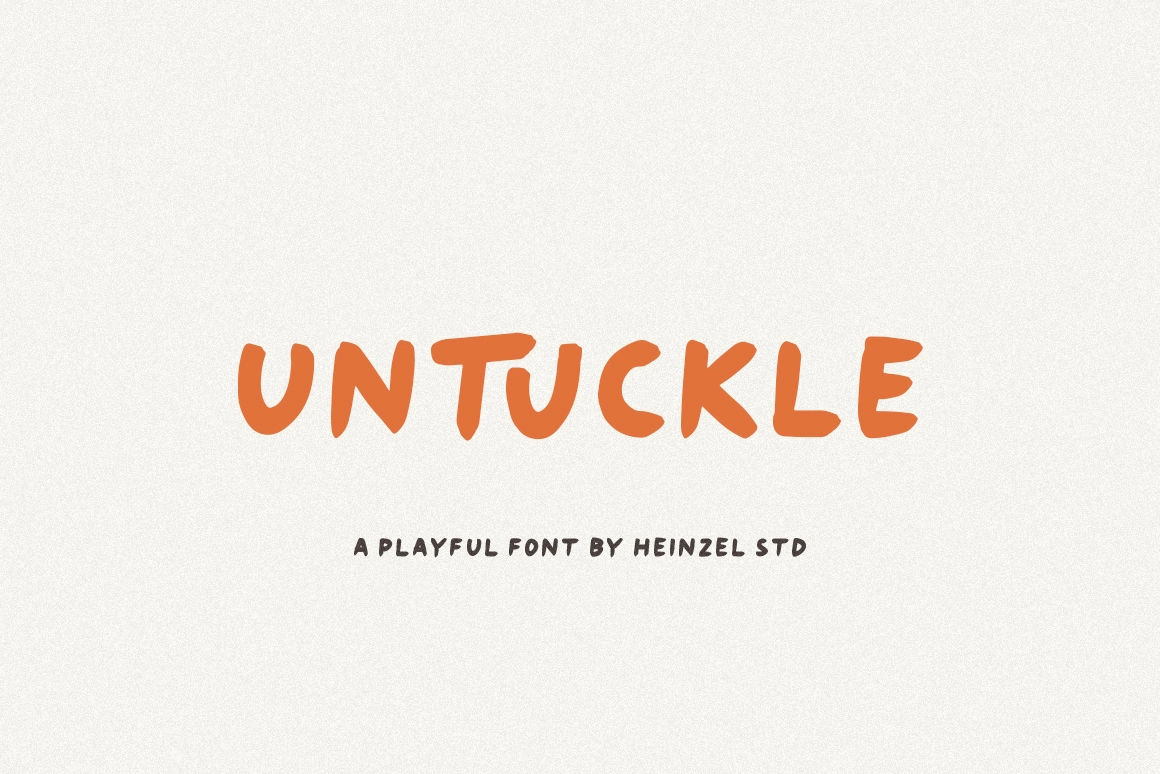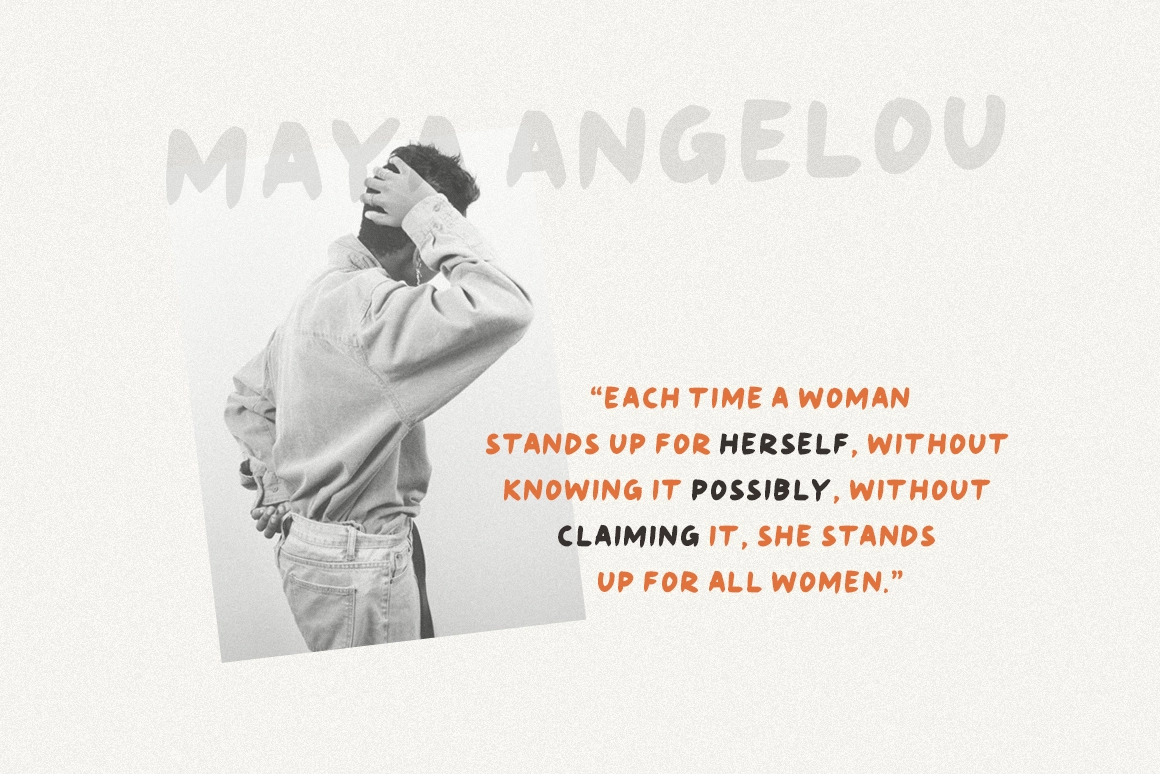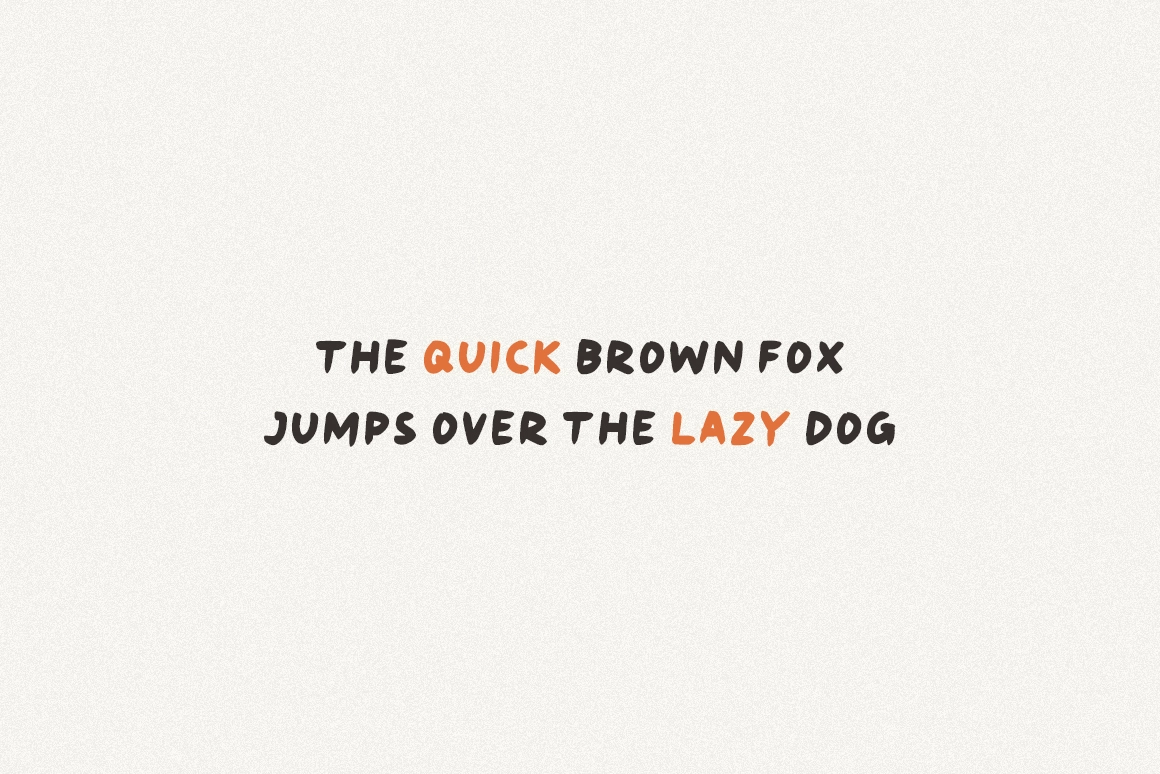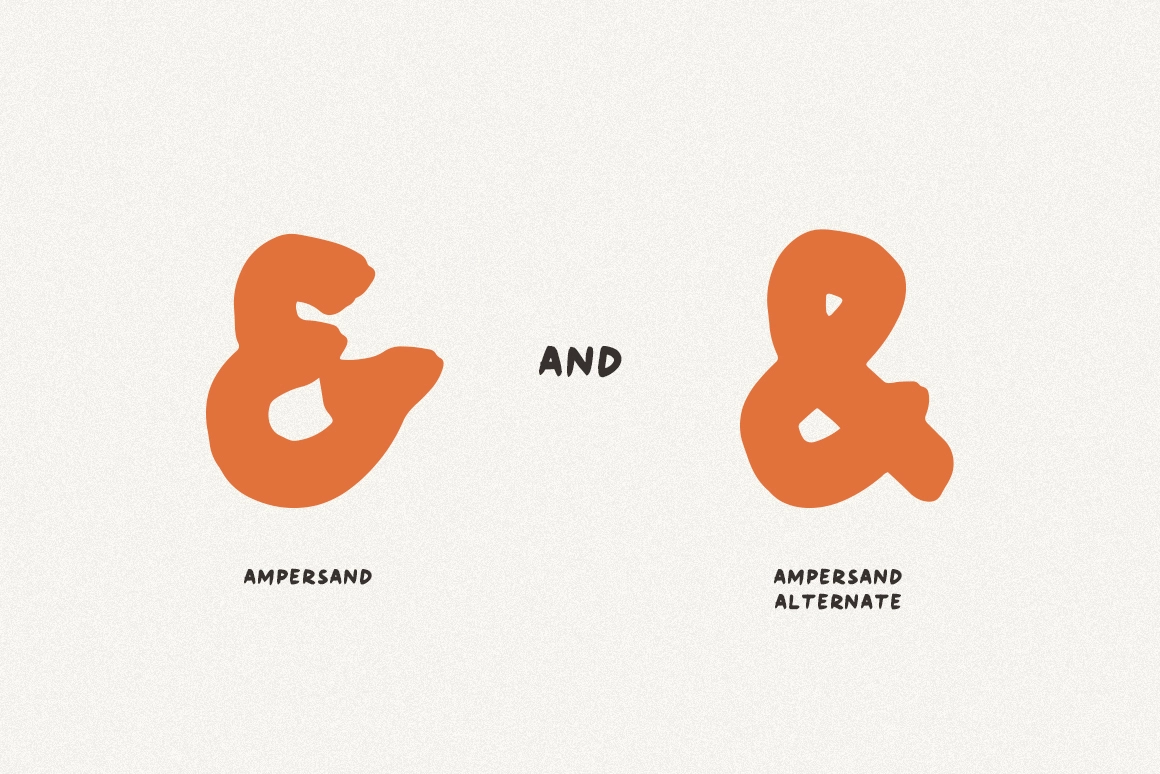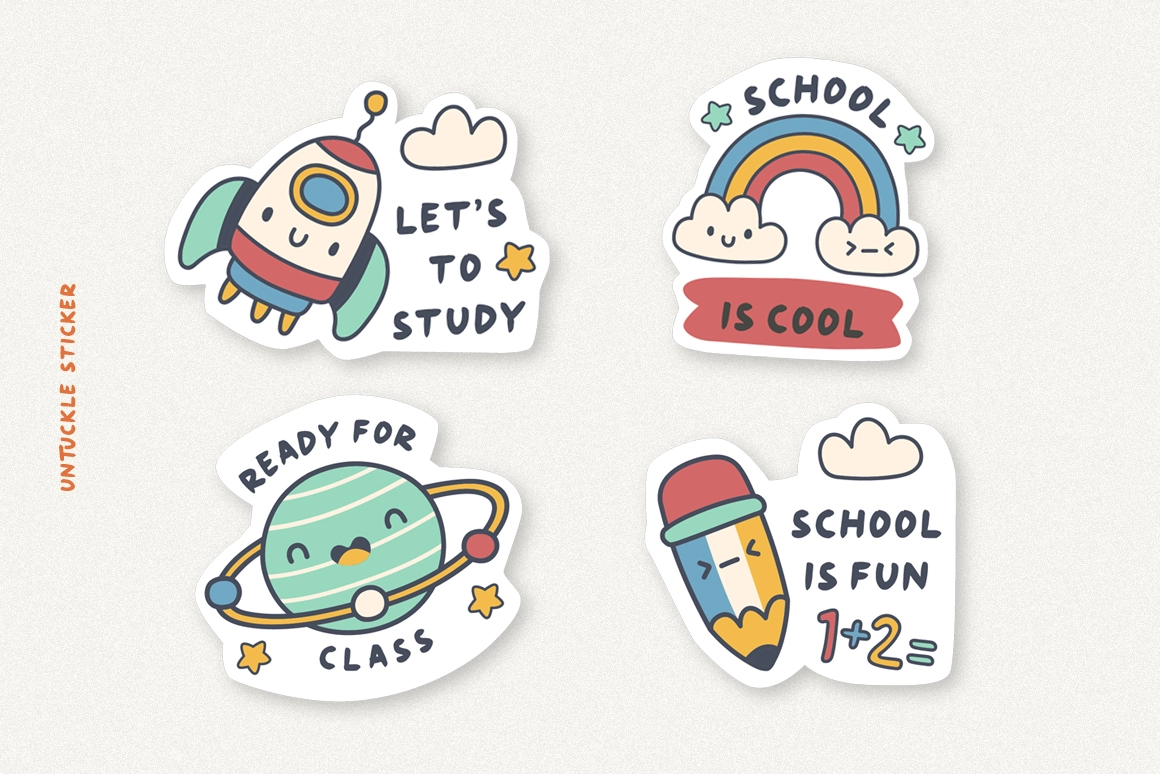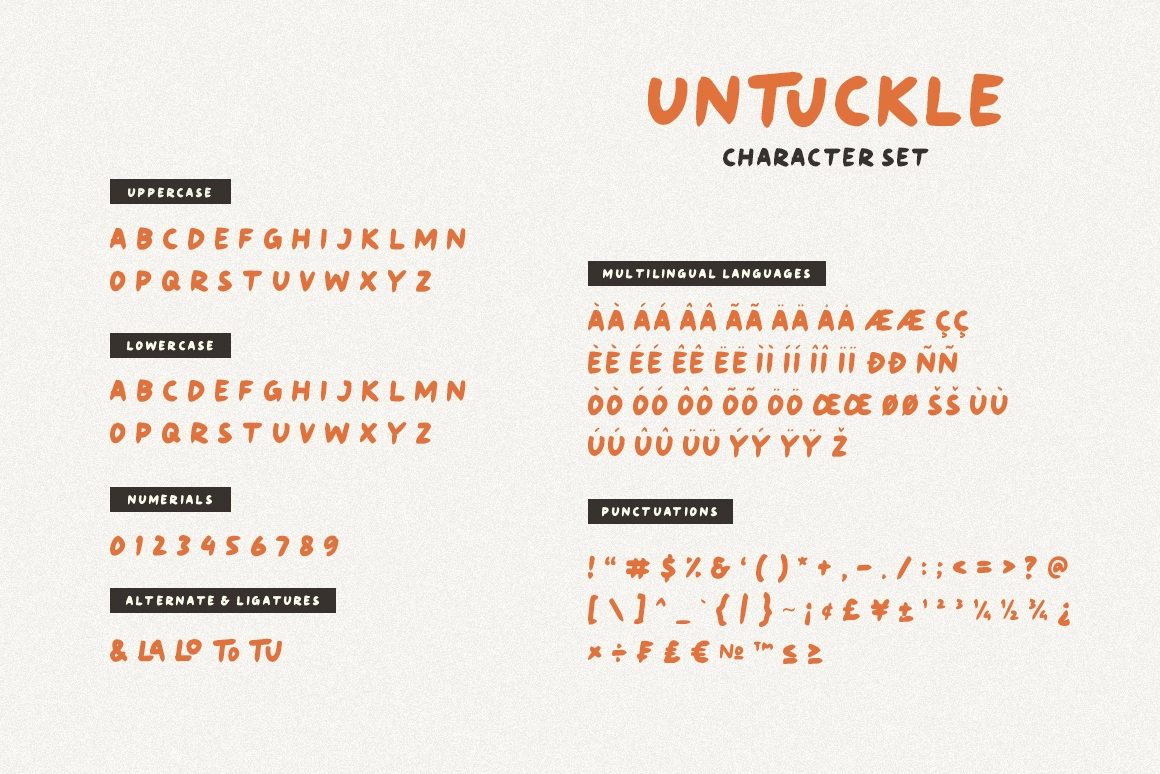
Untuckle - Playful Handwritten Font
Untuckle is a playful, handwritten all-caps font built on chunky, uneven strokes that wobble just enough to feel drawn by hand rather than traced. The letterforms stay round and blunt at the terminals, giving it a bouncy, kid-friendly energy without tipping into messy.
Untuckle holds its charm best in short, punchy lines where the wobble reads as character. Use it for children's branding, stickers and sticker packs, school and stationery products, greeting cards, packaging, social quote graphics, and playful poster headlines.
- uppercase only;
- numerals, punctuation & symbols;
- stylistic alternates and ligatures, including an alternate ampersand;